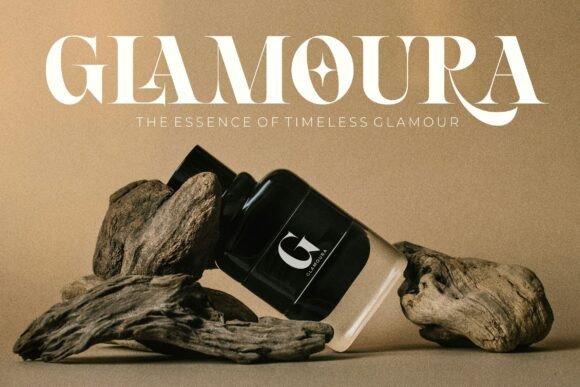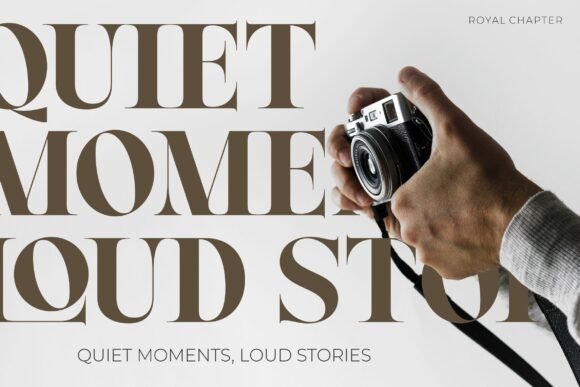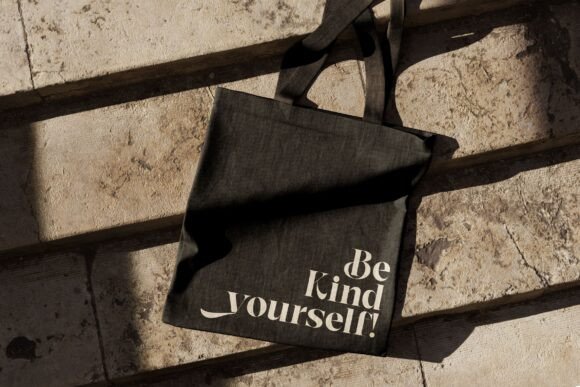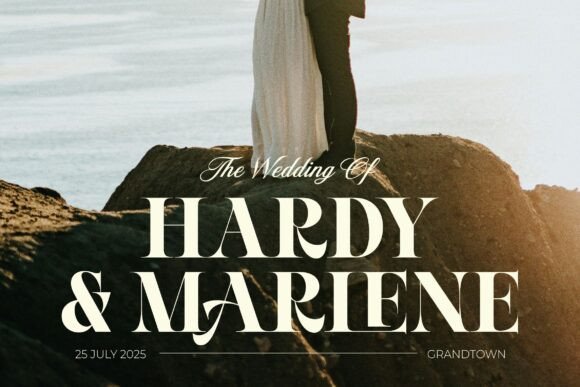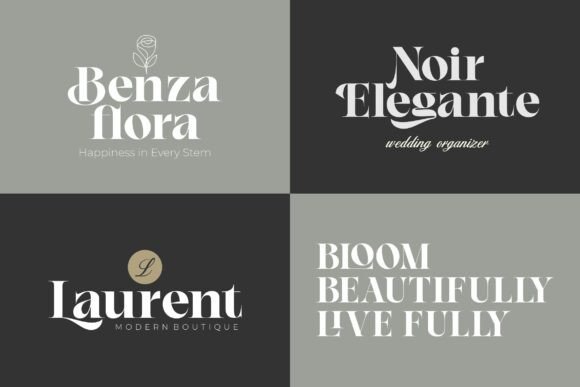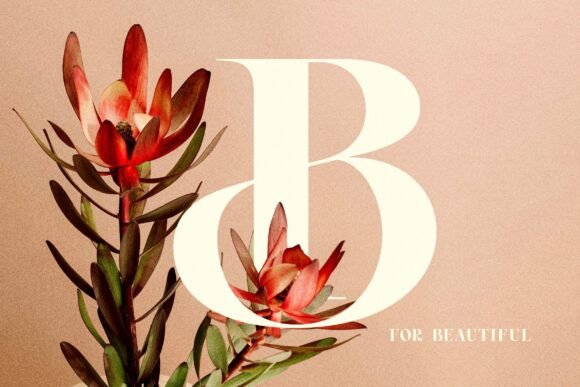
Introduction to Royal Chapter Font
Have you ever been brainstorming a creative project, and the perfect font eludes you? You envision a high-end brand, a luxurious invitation, or a sophisticated editorial design, but the right typeface seems just out of reach. For designers seeking that elusive touch of elegance, we’re excited to introduce you to the Royal Chapter Font – a modern serif font that exudes refined sophistication.
Whether you’re working on a free download project or a high-stakes design brief, Royal Chapter Font brings a harmonious blend of tradition and modernity to your creative endeavors. Its sharp serifs, balanced proportions, and contemporary flair make it an invaluable design resource for any project requiring a touch of luxury.
With its versatility and high-quality aesthetic, Royal Chapter Font is an excellent choice for designers seeking to elevate their work. Whether you’re designing on a transparent background or creating a complex composition, this font will undoubtedly leave a lasting impression.
Key Features of Royal Chapter Font
- High-quality font design ideal for creative projects and design resources
- Designed with a unique, elegant style perfect for titles and headings
- Supports a wide range of languages and characters
- Size: Includes 6 font styles with various weights and sizes
Honest Review: Royal Chapter Font
I recently had the opportunity to work with the Royal Chapter Font, and I must say it’s been a game-changer for my creative projects. The free download was a great starting point, and I was immediately impressed by the high quality of the font.
- ✨ The transparent background allows for seamless integration into any design, making it perfect for a wide range of creative projects.
- ✨ The font’s elegant and sophisticated design makes it ideal for high-end branding and design work.
- ✨ The high quality of the font ensures that it looks great even at large sizes, making it perfect for headings and titles.
- ⚠️ The font may not be suitable for more casual or playful designs, as it has a more formal tone.
- ⚠️ The font may require some adjustments to get it to work perfectly in certain design applications.
Overall, I’m really impressed with the Royal Chapter Font. It’s a valuable design resource that I’ll definitely be using again in the future. If you’re looking for a high-quality font for your creative projects, I’d definitely recommend giving it a try.
For optimal results, use the Royal Chapter Font in conjunction with other design elements that complement its unique look. Experiment with different font sizes, colors, and layouts to find the perfect combination for your creative project.
The Royal Chapter Font is perfect for a variety of creative projects, including book covers, wedding invitations, and business cards. Its high-quality design and transparent background make it an ideal choice for design resources and creative projects where you need a unique and sophisticated font.
What makes the Royal Chapter Font a high-quality design resource?
The Royal Chapter Font is a high-quality design resource due to its unique and elegant design, making it perfect for a wide range of creative projects. The font’s high quality is also reflected in its technical details, including its support for various languages and its compatibility with multiple operating systems.